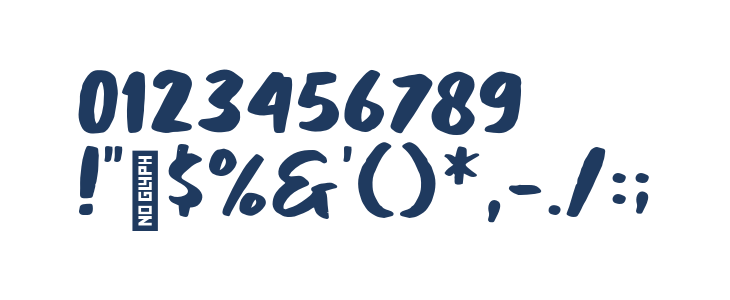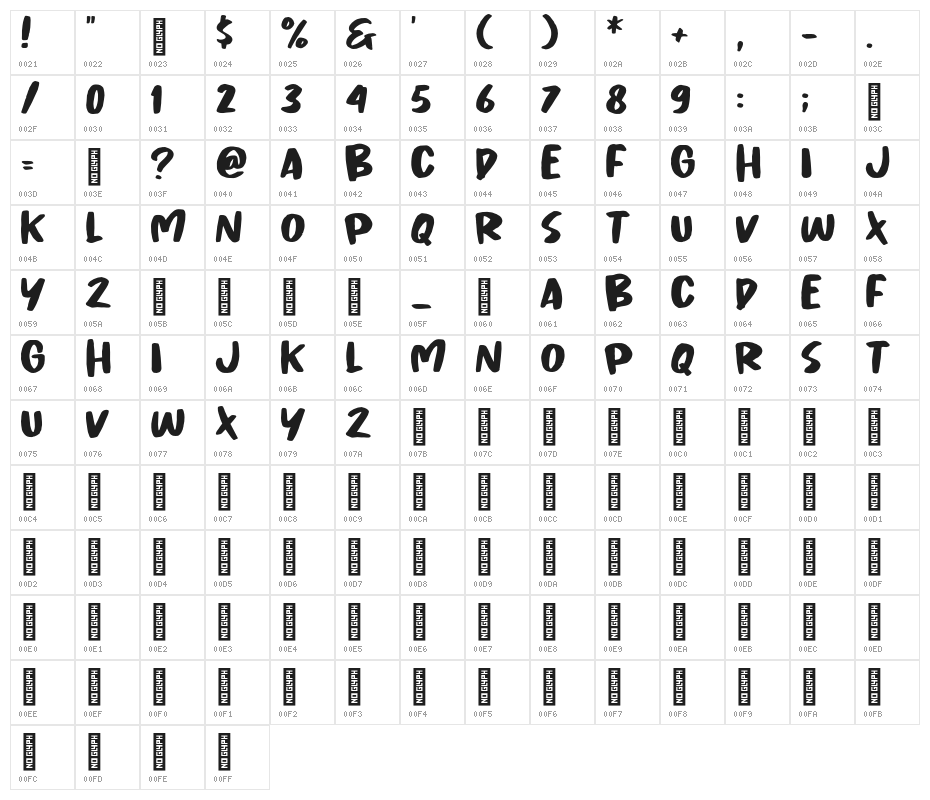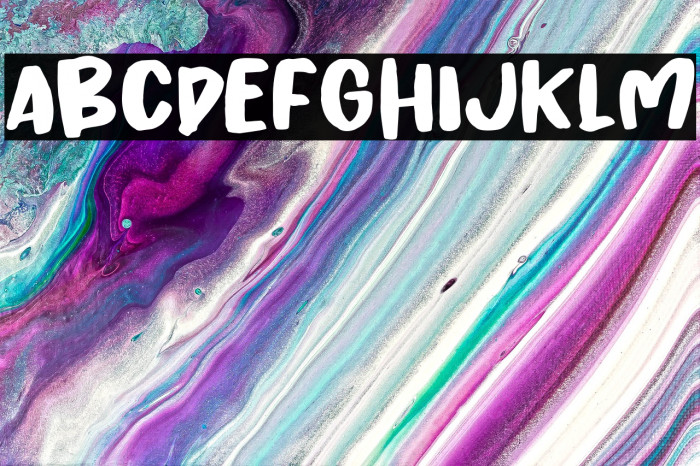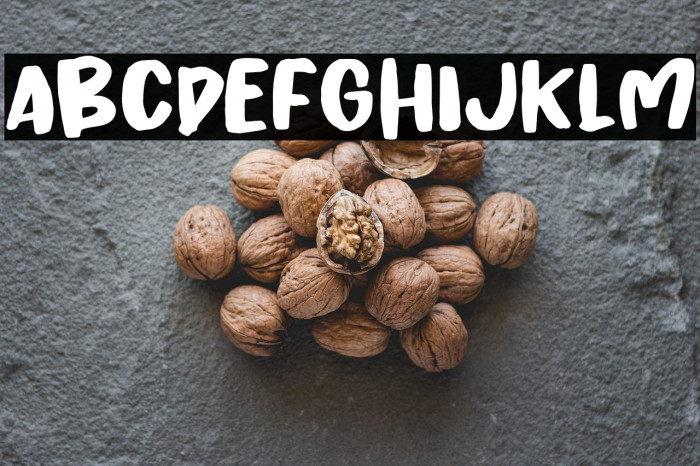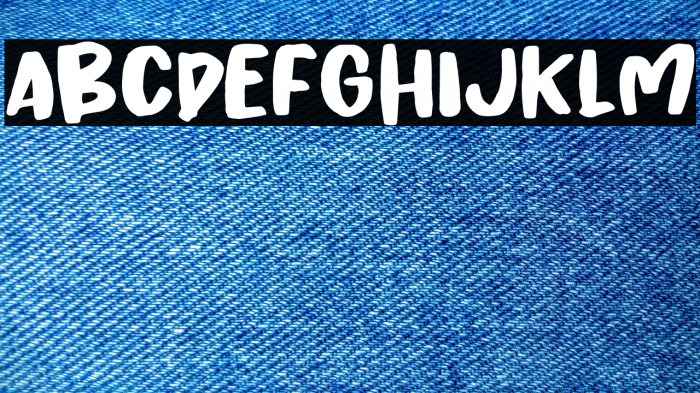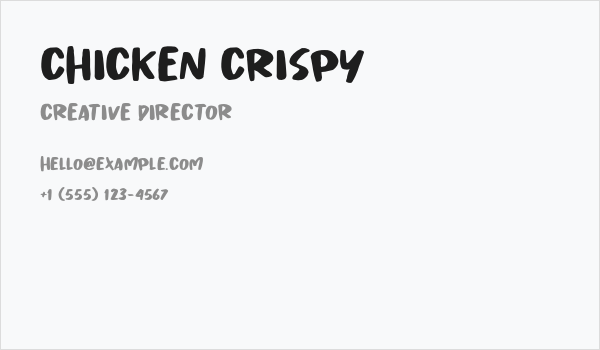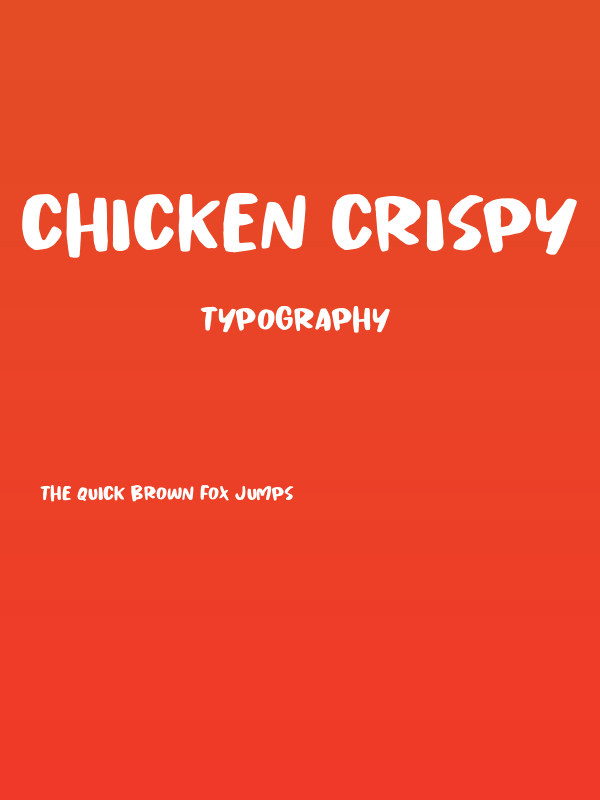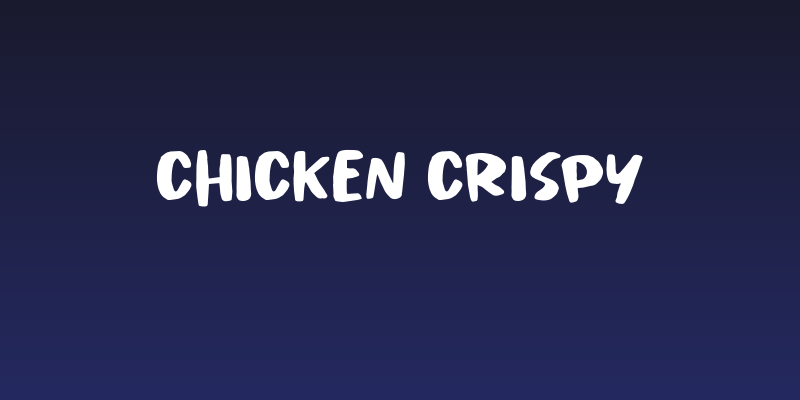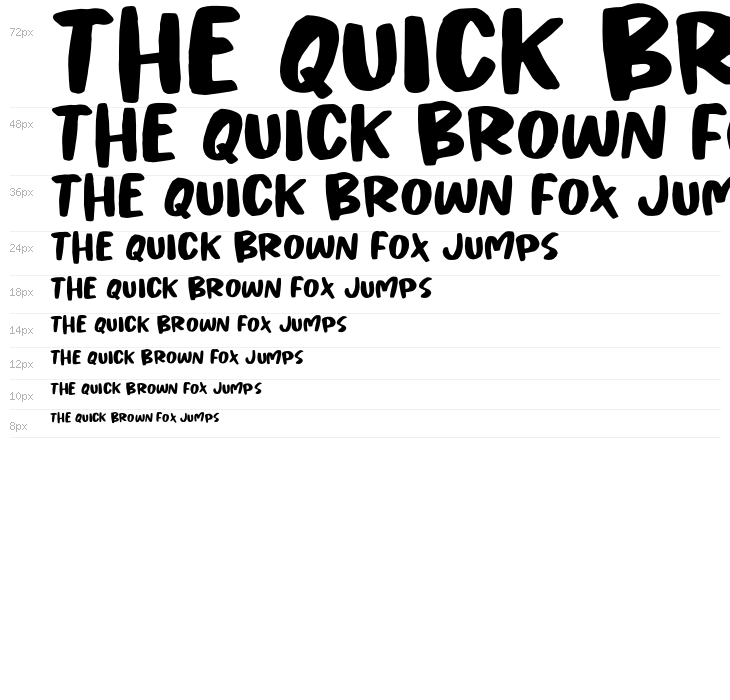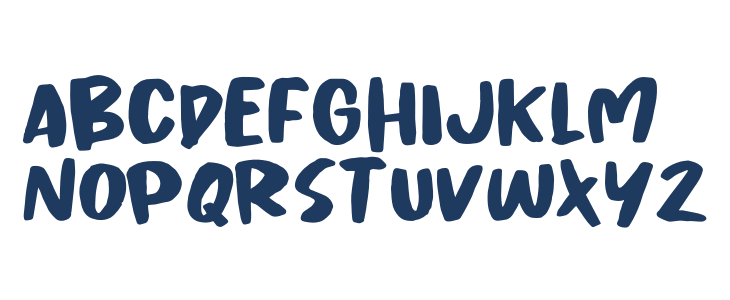
Chicken Crispy Font
Chicken Crispy Description
This font features a bold and playful handwritten style, characterized by its thick strokes and casual appearance. The letters are slightly irregular, adding a dynamic and energetic feel. The uppercase and lowercase letters maintain a consistent style, with rounded edges and a slightly tilted orientation, enhancing its informal and approachable look. The numbers and special characters follow the same design principles, ensuring a cohesive appearance across all glyphs. This font is ideal for projects that require a fun and engaging aesthetic.
| Proposed Projects | Perfect for children's books, playful branding, casual invitations, and social media graphics. |